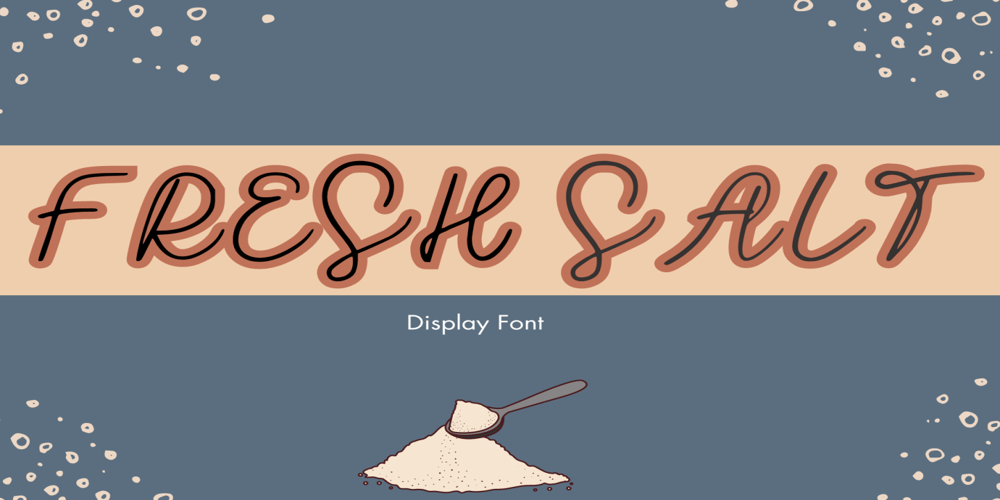
Fresh Salt
Fresh Salt font
Fresh Salt Font Family was designed by Alex Kaczun and published by Adita Fonts. Fresh Salt contains 1 styles and family package options. Fresh Salt is a minimal and beautiful script font that can make your projects look lovely! It is the best choice for creating eye-catching logos, branding materials, quotes, wedding card or souvenir design.